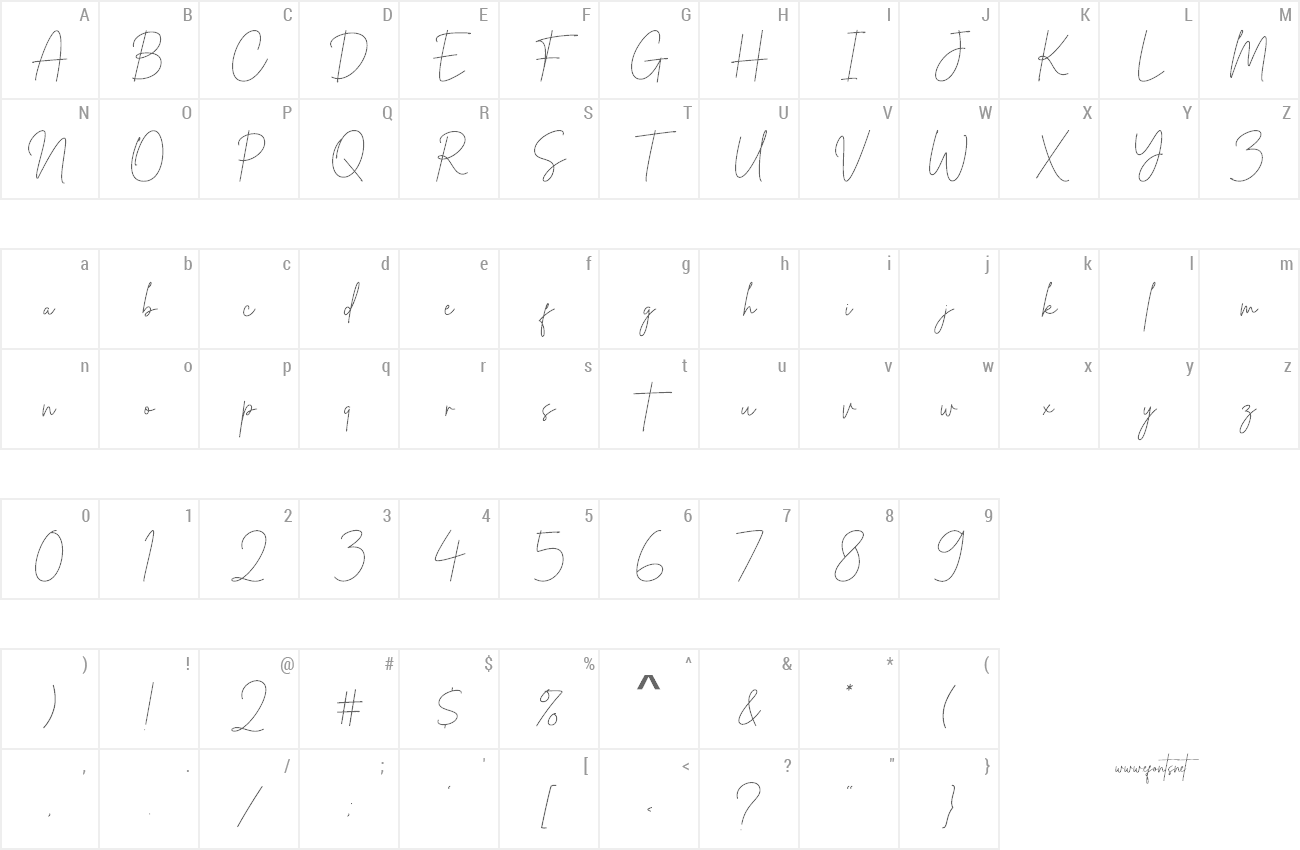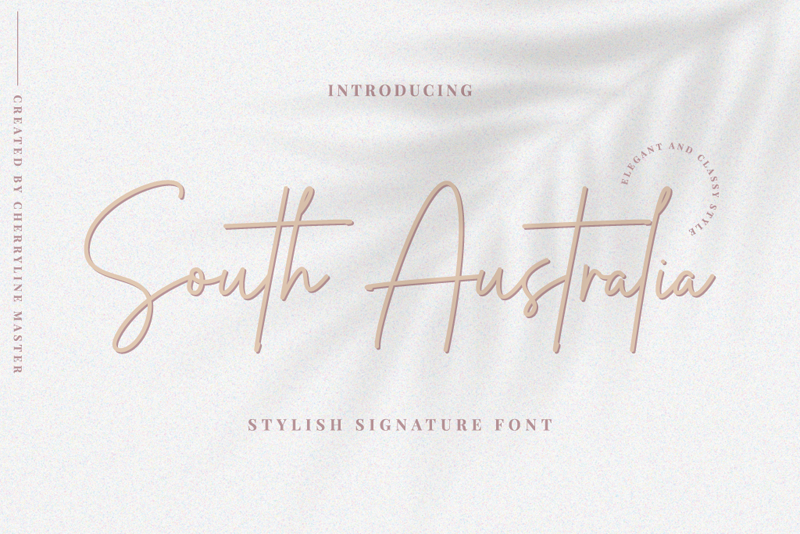
Preview and download South Australia Font. Created by Alvaro Ariel in Script Handwritten styles with Free for personal use license.
South Australia is a lovely and timeless handwritten font. It is the best choice for creating eye catching logos, branding and quotes. Every letter has a unique and beautiful touch, which will make your design come alive! NOTE: This demo font is for PERSONAL USE ONLY! But any donation are very appreciated. Paypal account for donations: https://www.paypal.me/arielzxvalv7 Link to buy the full version and commercial license: https://www.creativefabrica.com/product/south-australia-3/ref/236375/ Thank You :) |